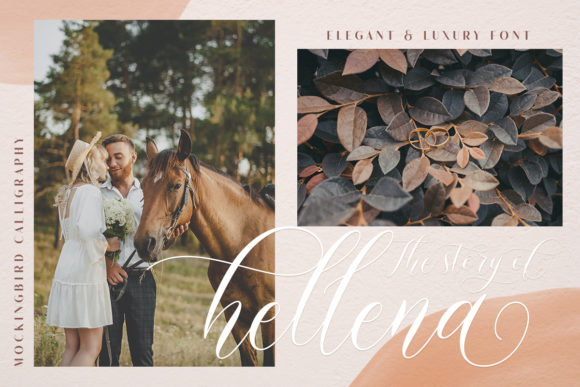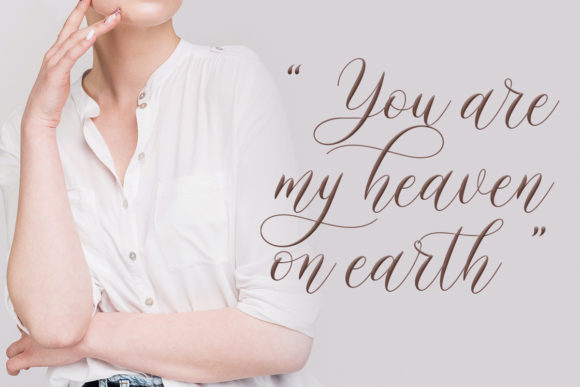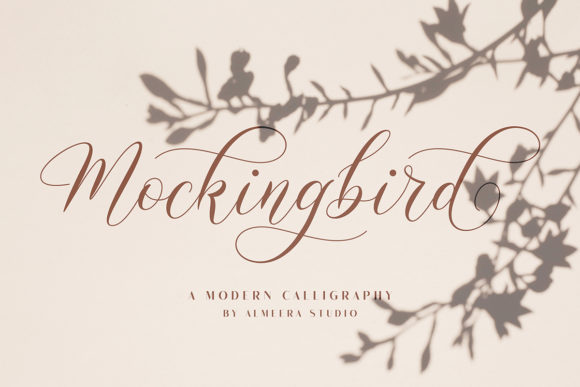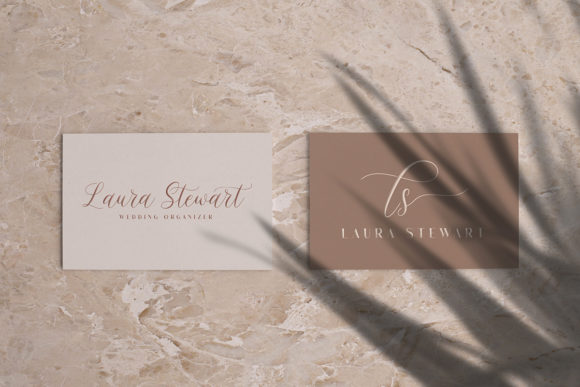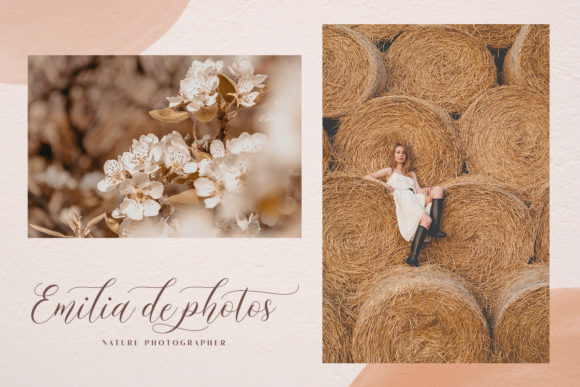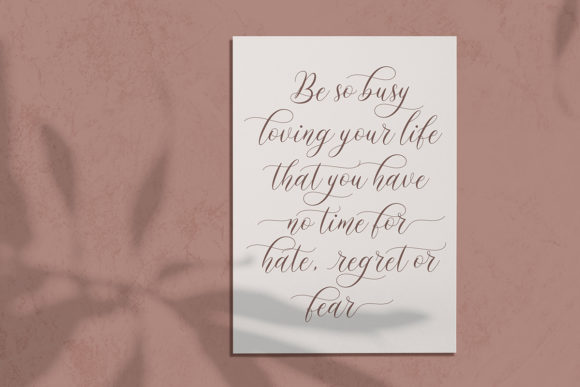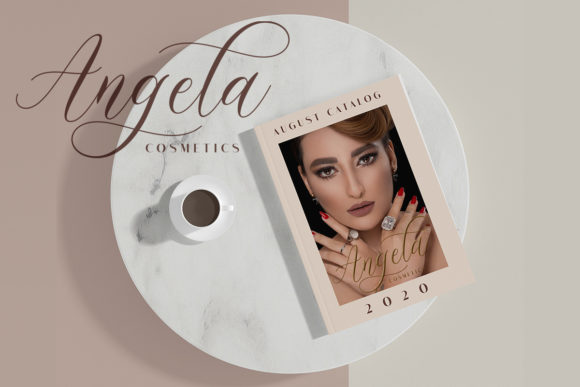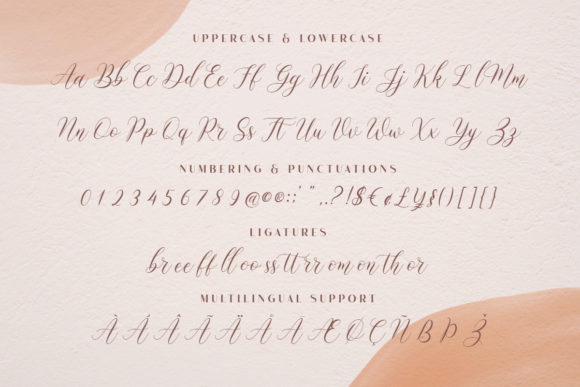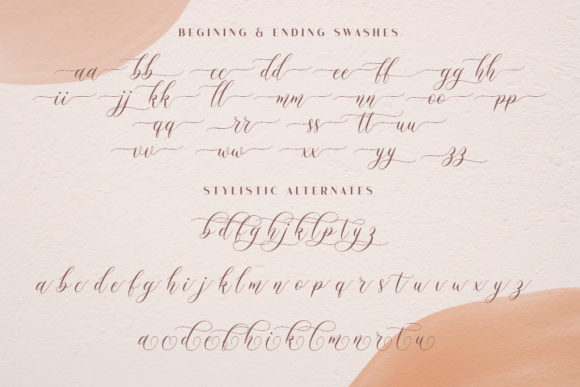
Mockingbird Font
About Mockingbird Font
Mockingbird sounds like a truly enchanting and versatile handwritten font that can add a touch of elegance and charm to a wide range of design projects. With its distinct and delicate style, it’s perfect for creating stunning and heartfelt designs that leave a lasting impression. Here are some creative ideas on how to use the beauty and versatility of Mockingbird font to elevate your designs:
1. Wedding Invitations: Design exquisite and romantic wedding invitations that capture the essence of the special day with Mockingbird font’s timeless and elegant charm.
2. Thank You Cards: Create heartfelt and personalized thank you cards using Mockingbird font to express gratitude in a charming and authentic way.
3. Inspirational Quotes: Use Mockingbird font to design beautiful typographic quotes that inspire and uplift, perfect for social media graphics or wall art.
4. Greeting Cards: Design unique and memorable greeting cards for various occasions, making recipients feel special and cherished.
5. Logos and Branding: Incorporate Mockingbird font into logo designs and branding materials to give businesses and brands a refined and personalized touch.
6. Business Cards: Create elegant and eye-catching business cards that make a lasting impression on potential clients and partners.
7. Personal Stationery: Use Mockingbird font to design personalized stationery sets, making correspondence extra special.
8. Labels and Packaging: Add a touch of elegance to product labels and packaging using Mockingbird font to create a memorable and sophisticated presentation.
9. Social Media Graphics: Design captivating and engaging social media posts that stand out with Mockingbird font’s unique and delicate style.
10. Book Covers: Use Mockingbird font for book covers, particularly for genres like romance, poetry, and inspirational literature.
11. Wall Prints: Create beautiful wall art and prints featuring heartfelt messages or quotes using Mockingbird font.
12. Personal Journals: Incorporate Mockingbird font into personal journals and diaries for a touch of elegance and individuality.
13. Artistic Prints: Design art prints with Mockingbird font featuring hand-lettered phrases or illustrations.
14. Event Invitations: Use Mockingbird font to create stylish and sophisticated invitations for various events, such as anniversaries or special celebrations.
15. Poetry Collections: Design covers and layouts for poetry books and collections using Mockingbird font to capture the essence of the written words.
16. Wedding Programs: Use Mockingbird font to design elegant and memorable wedding programs that set the tone for the ceremony.
17. Quotes on Home Decor: Incorporate Mockingbird font into home decor items featuring inspirational or sentimental quotes.
18. Craft Projects: Use Mockingbird font for various craft projects, such as hand-lettered signs or personalized gifts.
19. Artistic Prints: Design art prints with Mockingbird font featuring hand-lettered phrases or illustrations.
20. Cozy Event Invitations: Use Mockingbird font for invitations to cozy gatherings, such as tea parties or intimate gatherings with friends.
In summary, Mockingbird is an incredibly distinct and timeless handwritten font that can elevate a wide range of design projects to new heights. Whether it’s for wedding invitations, thank you cards, branding, social media graphics, or personalized stationery, Mockingbird font’s elegance and versatility make it a true favorite for any design that needs a touch of heartfelt charm and sophistication. Let your creativity soar with Mockingbird font, and create stunning and memorable designs that leave a lasting impression on your audience.